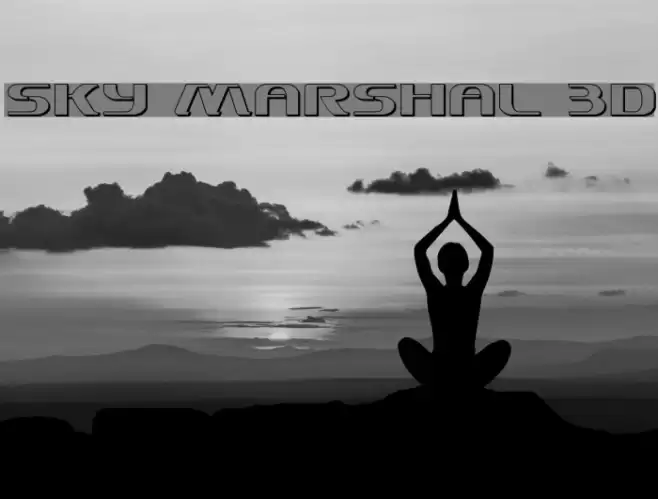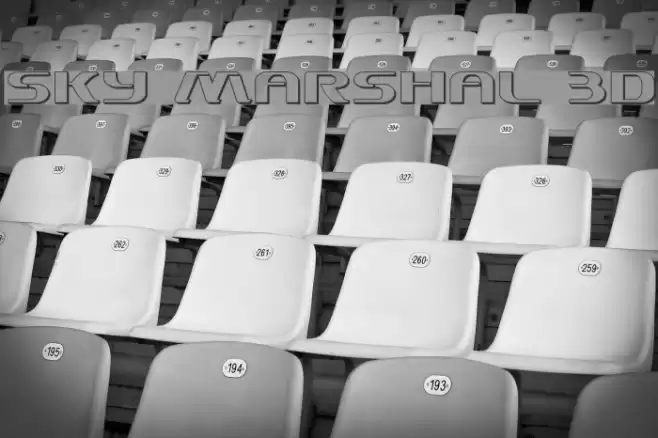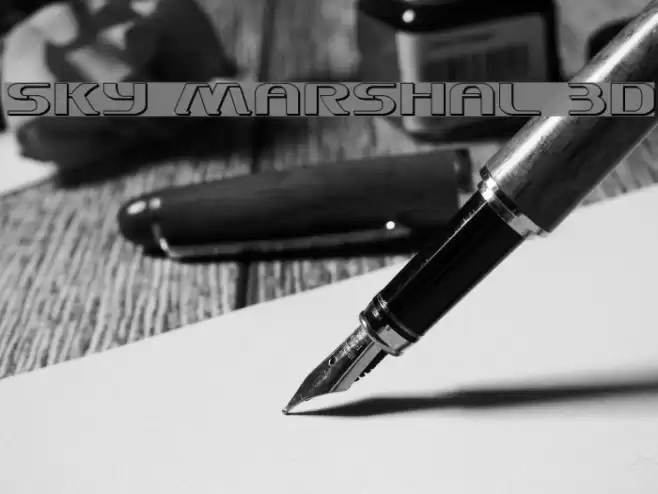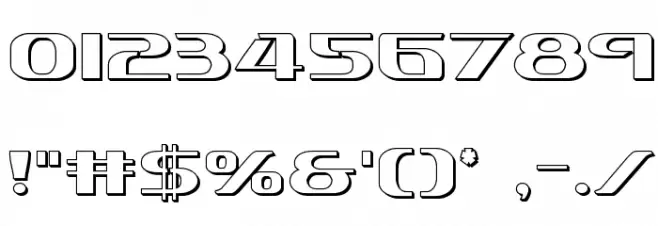
Sky Marshal 3D Font
Sky Marshal 3D Description
This font features a futuristic and geometric design, characterized by its three-dimensional appearance. The letters are constructed with a bold outline that gives them a sense of depth and structure. The angular and sharp edges contribute to a modern and tech-inspired aesthetic, making it suitable for projects that require a cutting-edge look. The uniformity in the design ensures consistency across all characters, including numbers and special symbols. This font is particularly striking in larger sizes where its unique style can be fully appreciated.
A futuristic, 3D geometric font with bold outlines and sharp edges from Uncategorized fonts.
- Proposed Projects: Ideal for sci-fi movie posters, tech company logos, video game titles, and futuristic-themed event branding.